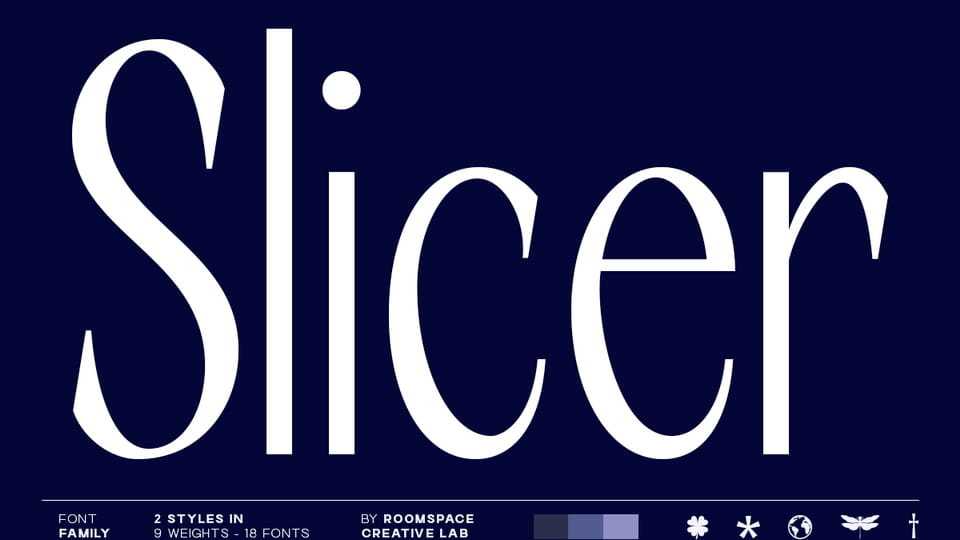
RCL Slicer Font › Fontesk – Download Grátis
Download Slicer font, a condensed sans-serif typeface designed for modern designers who need precision and presence with its narrow proportions and sharp contrast.